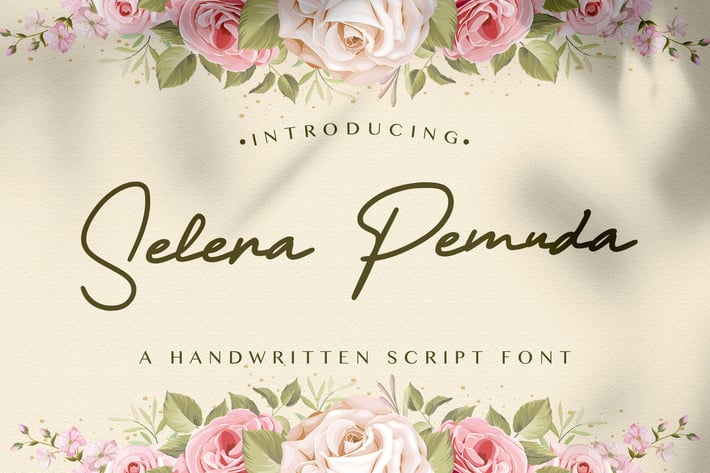
Selera Pemuda - Handwritten Font
Introducing Selera Pemuda - Handwritten Script Font
Selera Pemuda is a flowing handwritten font, described by an elegant touch, perfect for your favorite projects. Fall in love with its incredibly distinct and timeless style and use it to create spectacular designs!